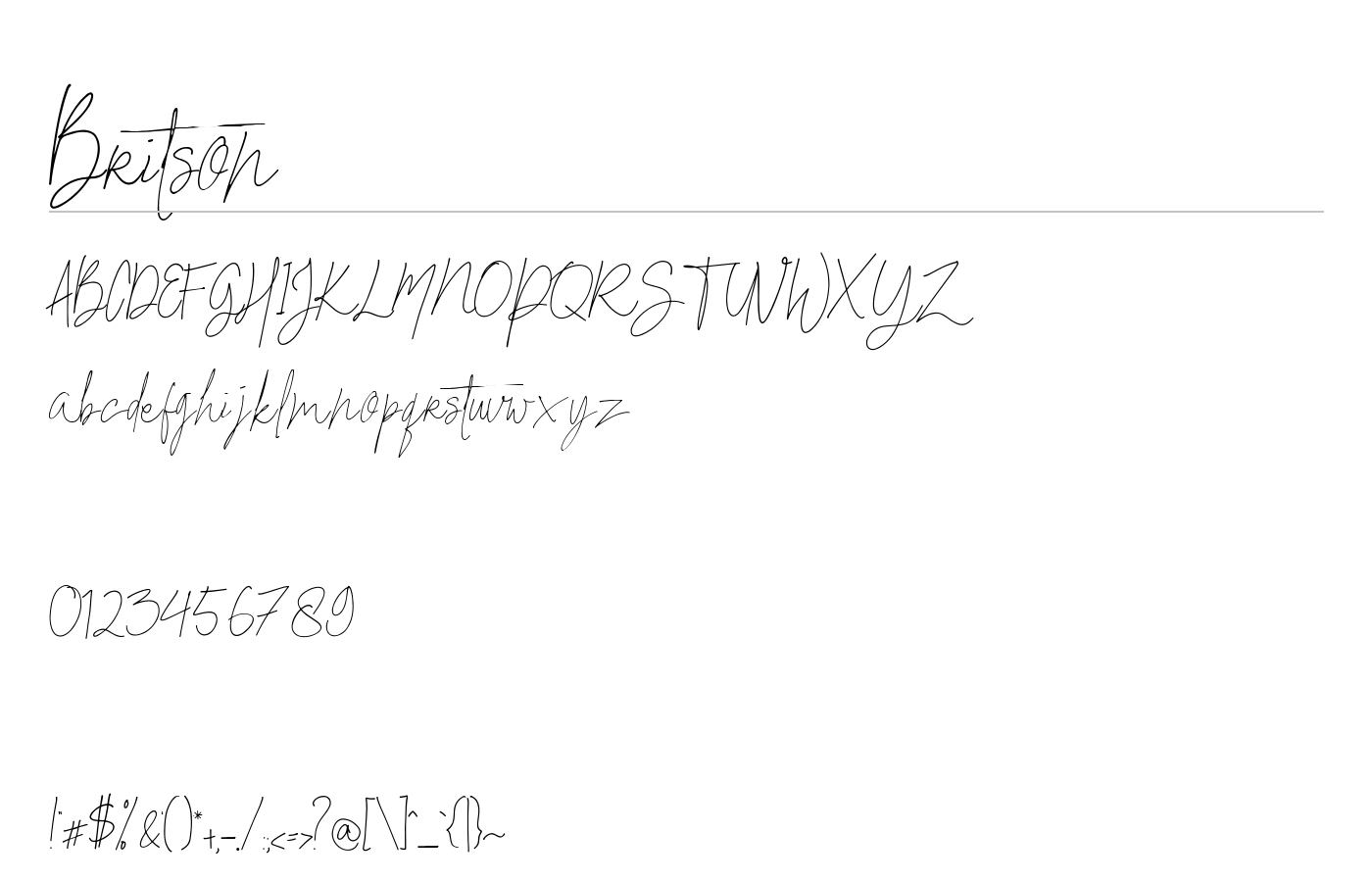
Britson is a delicate, handwritten script font characterized by its very thin, flowing lines and elegant, casual style. Its light weight and airy spacing give it a personal, approachable feel, making it ideal for branding, invitations, and creative projects that seek a touch of sophistication with a natural, handwritten charm. This font works best in large sizes for headlines or logos where its intricate details can be appreciated.
Britson Font
About Britson Font
| Designer | Sigit Dwipa |